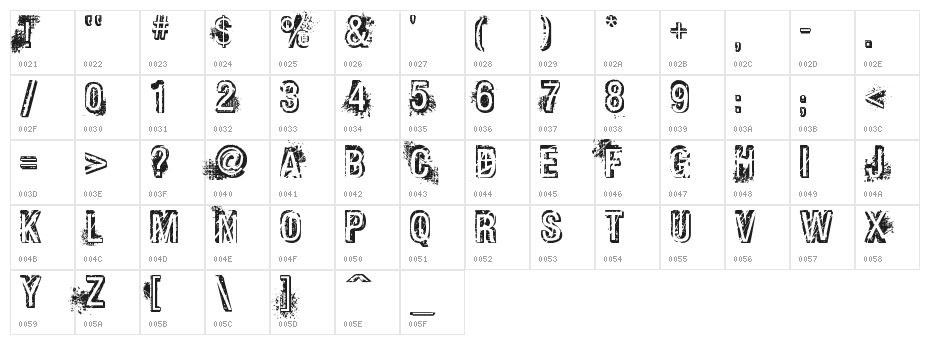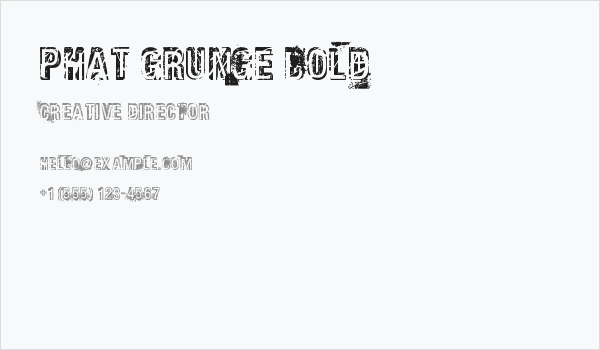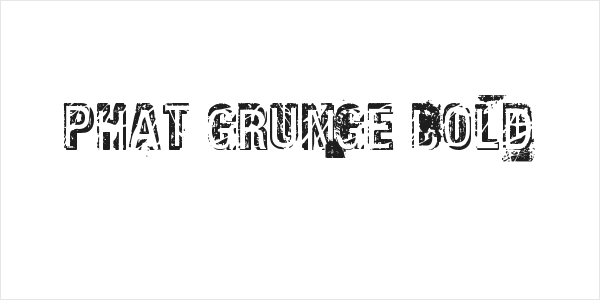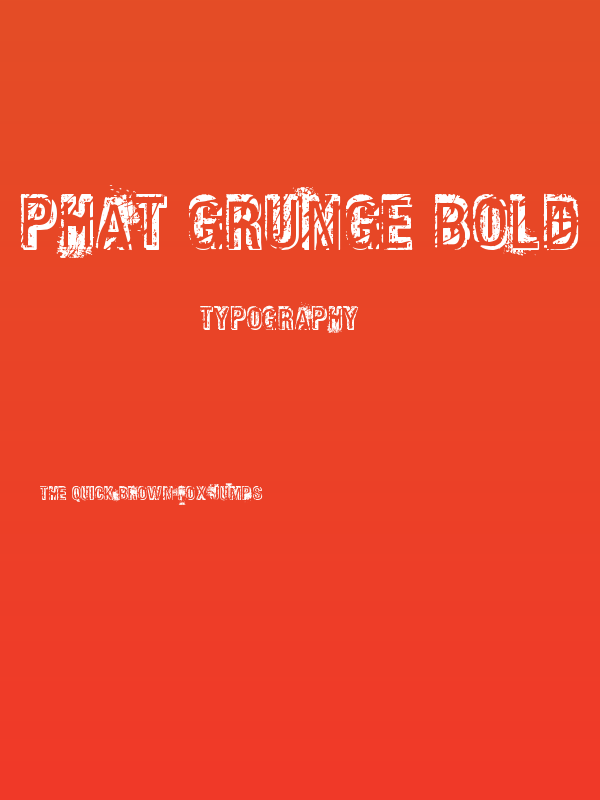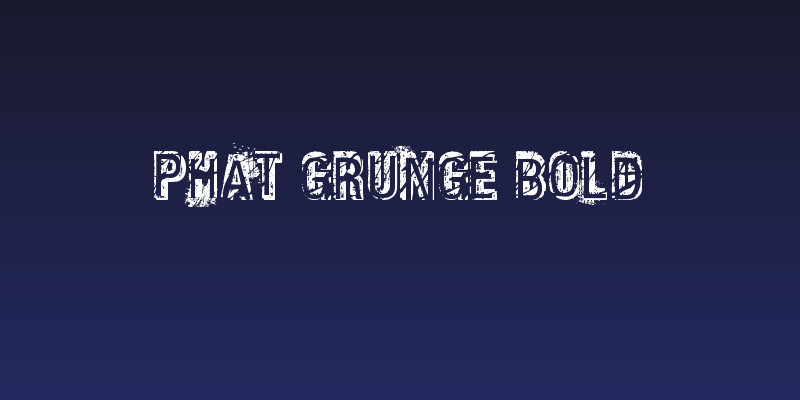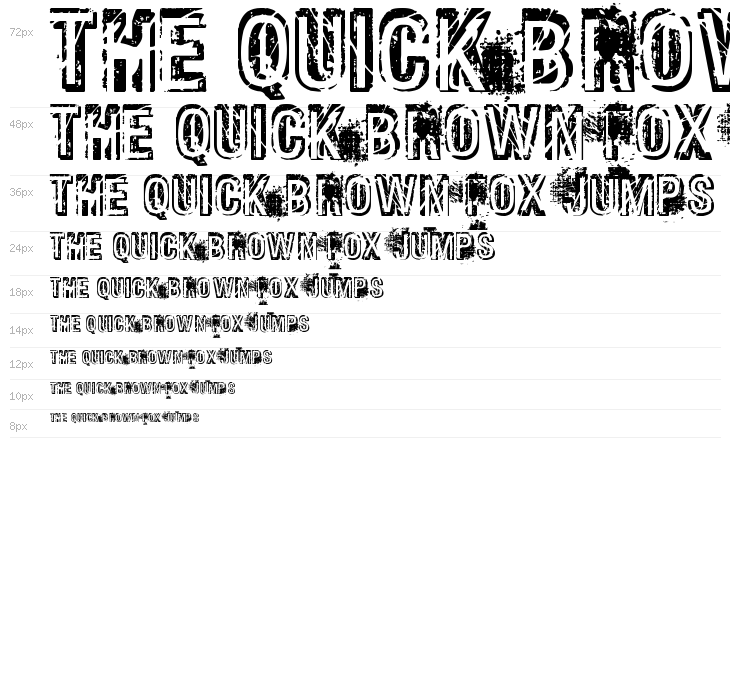
Phat Grunge Bold Font
Phat Grunge Bold Description
This font features a bold, distressed style with a grunge aesthetic. The characters are heavily textured, giving them a worn and rugged appearance. Each letter and number is designed with a rough, uneven edge, creating a sense of movement and energy. The font's unique style is reminiscent of urban street art or vintage rock band posters, making it ideal for projects that require a bold and edgy look. The uppercase and lowercase letters maintain a consistent design, while the numbers and special characters complement the overall theme. This font is perfect for making a strong visual impact.
| Overall Style | Grunge, Urban, Edgy |
| Proposed Projects | Ideal for album covers, posters, streetwear branding, and edgy graphic designs. |